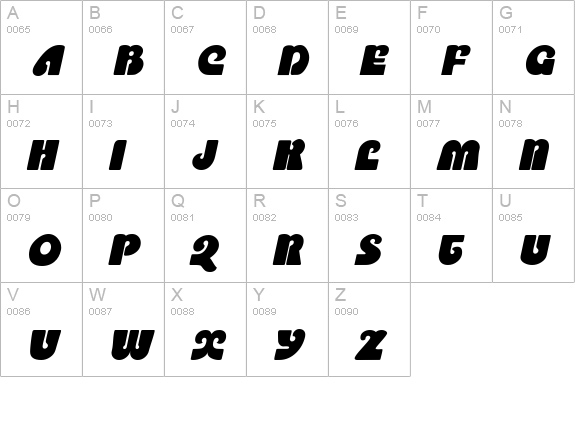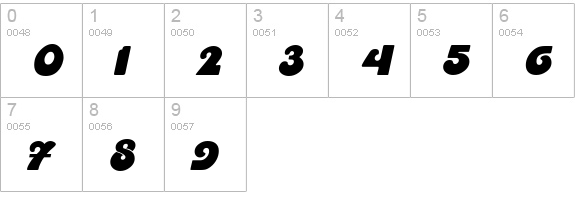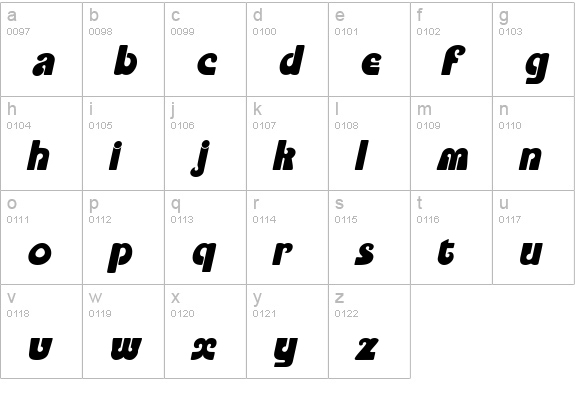
PookyDisplay Italic Font Details
PookyDisplay Italic is a distinctive, italic variant in the PookyDisplay typeface family \xE2\x80\x94 well suited to design and typography projects.
PookyDisplay Italic font is a stylish and modern typeface that exudes elegance and sophistication. Its sleek and slanted design adds a touch of flair to any project, making it perfect for branding, logos, headlines, and more. The italicized letterforms of PookyDisplay Italic font create a sense of movement and dynamism, drawing the viewer's eye in with its unique charm. Best of all, PookyDisplay Italic font is available for free download at FontsMarket.com. This means you can add this versatile font to your collection without any cost, making it a valuable asset for your design projects. Whether you're a professional designer or a hobbyist looking to elevate your creations, PookyDisplay Italic font is a must-have addition to your toolkit. Download it today and let your creativity soar with this exceptional typeface.